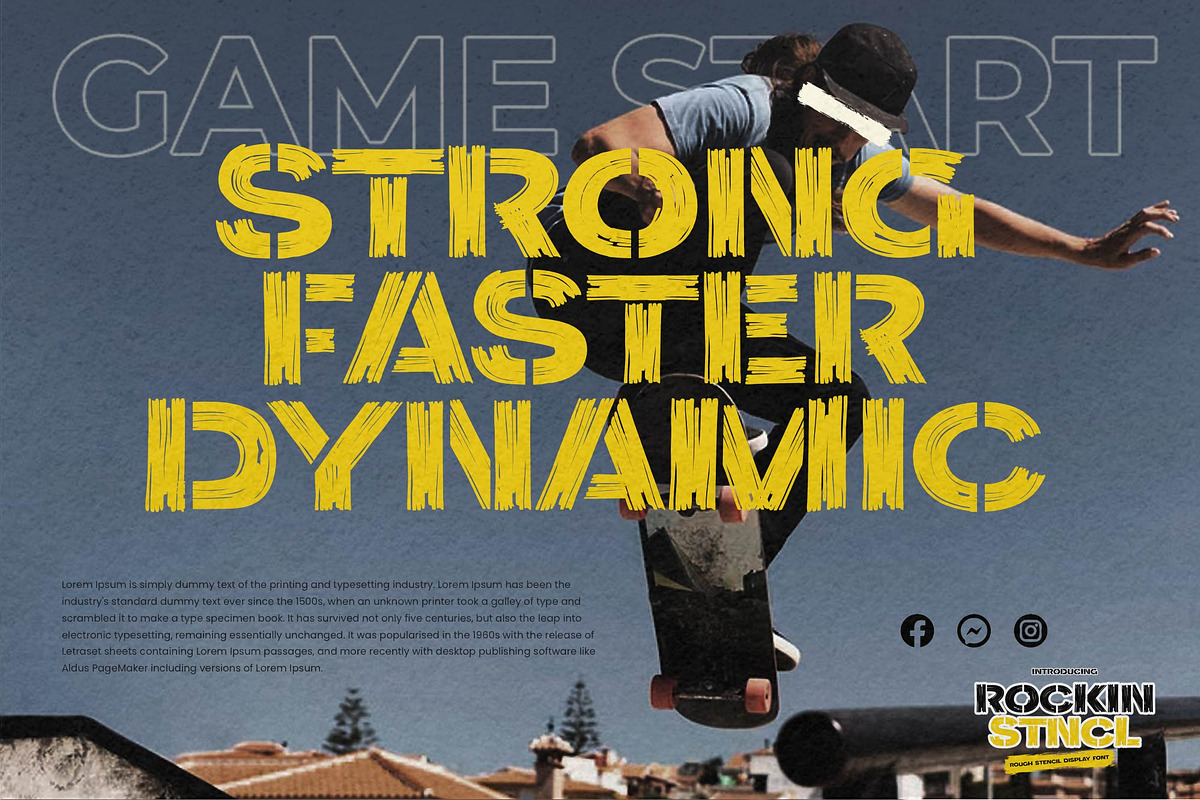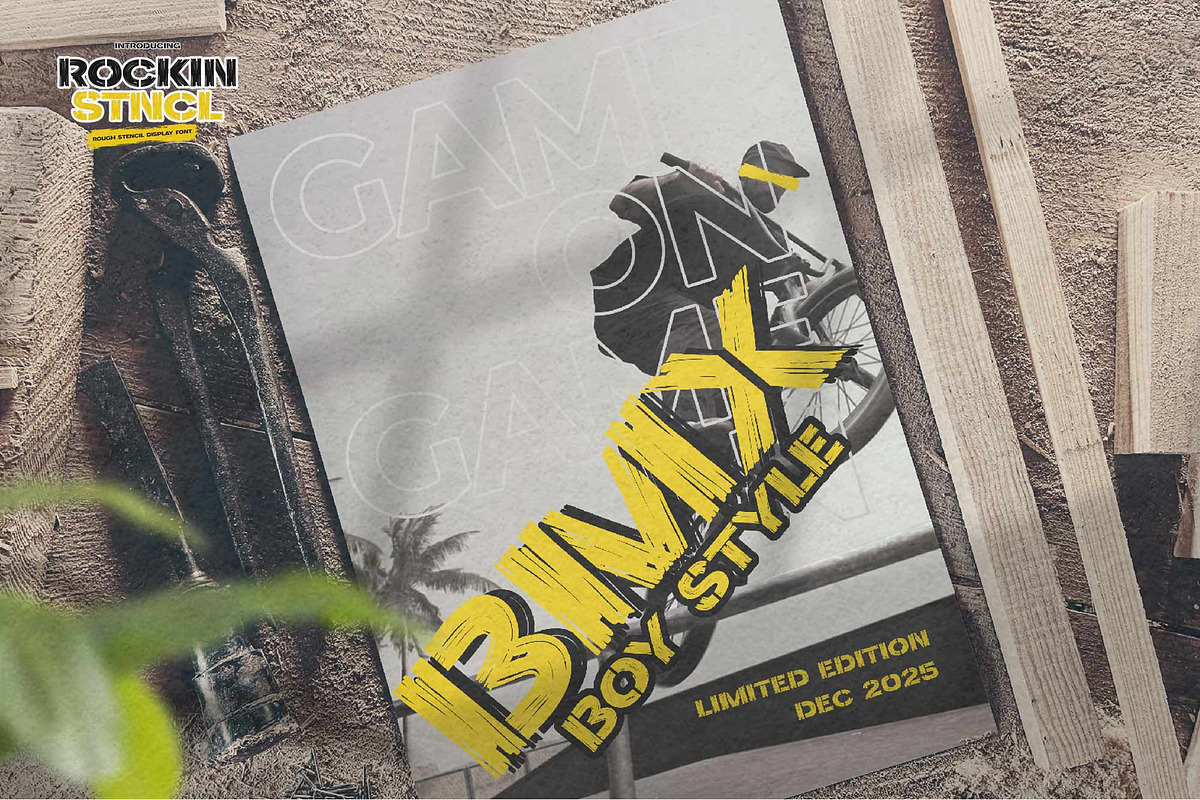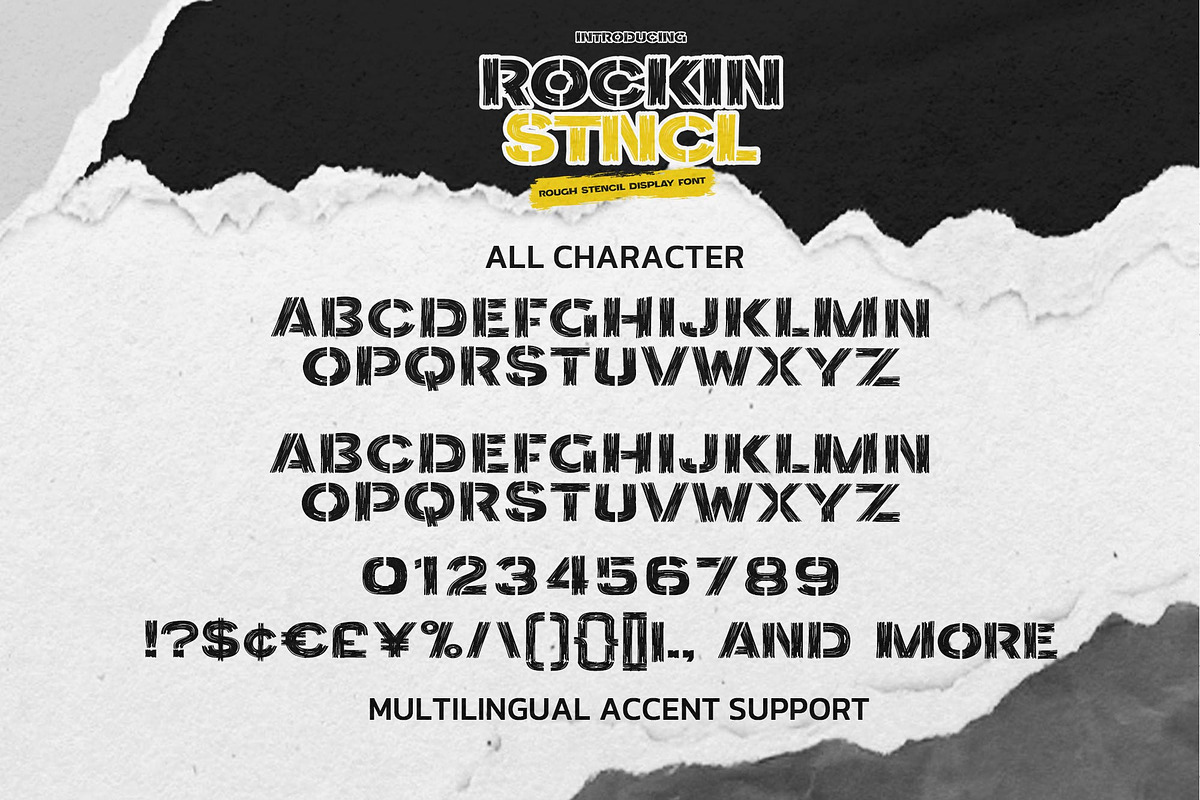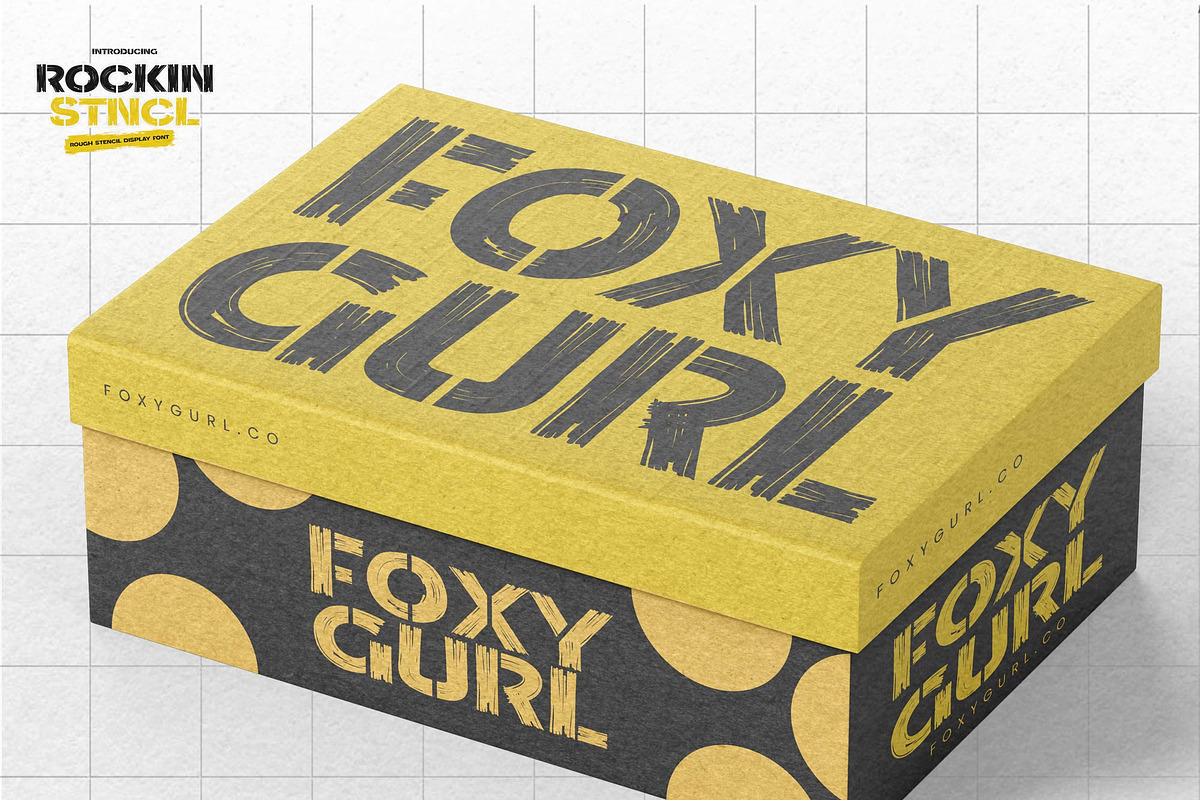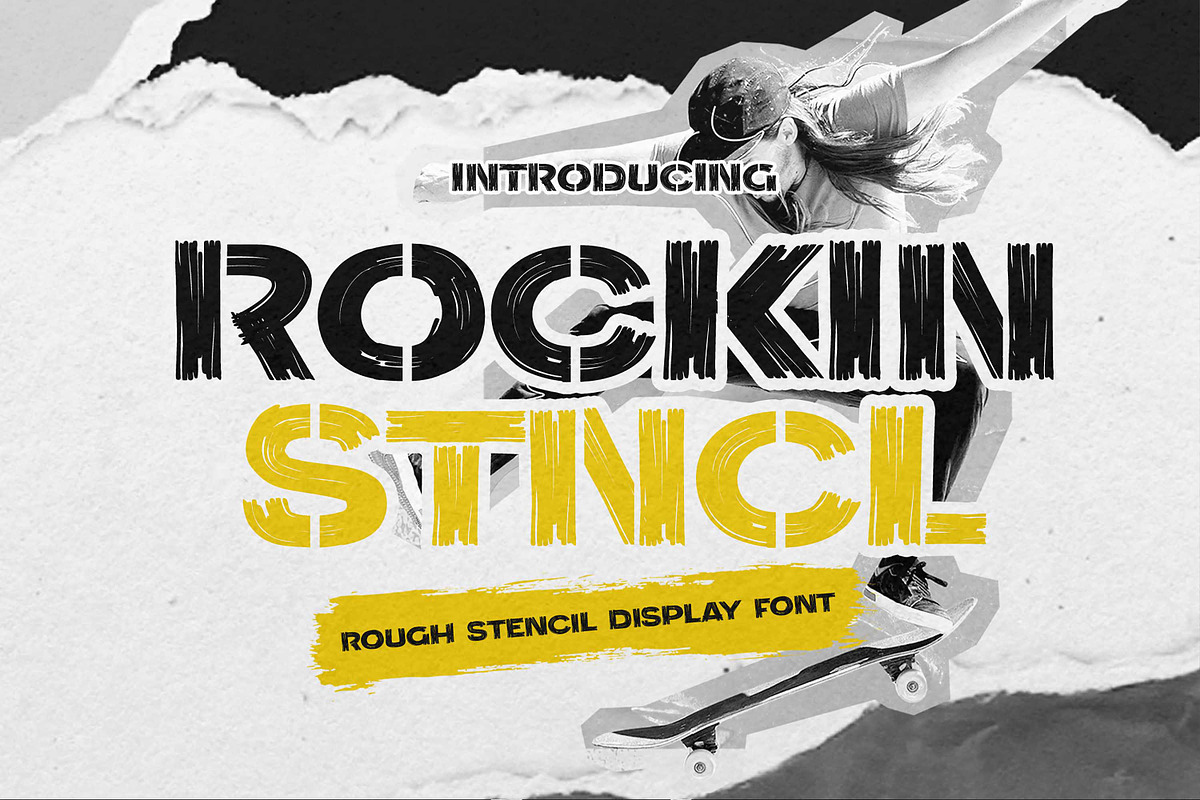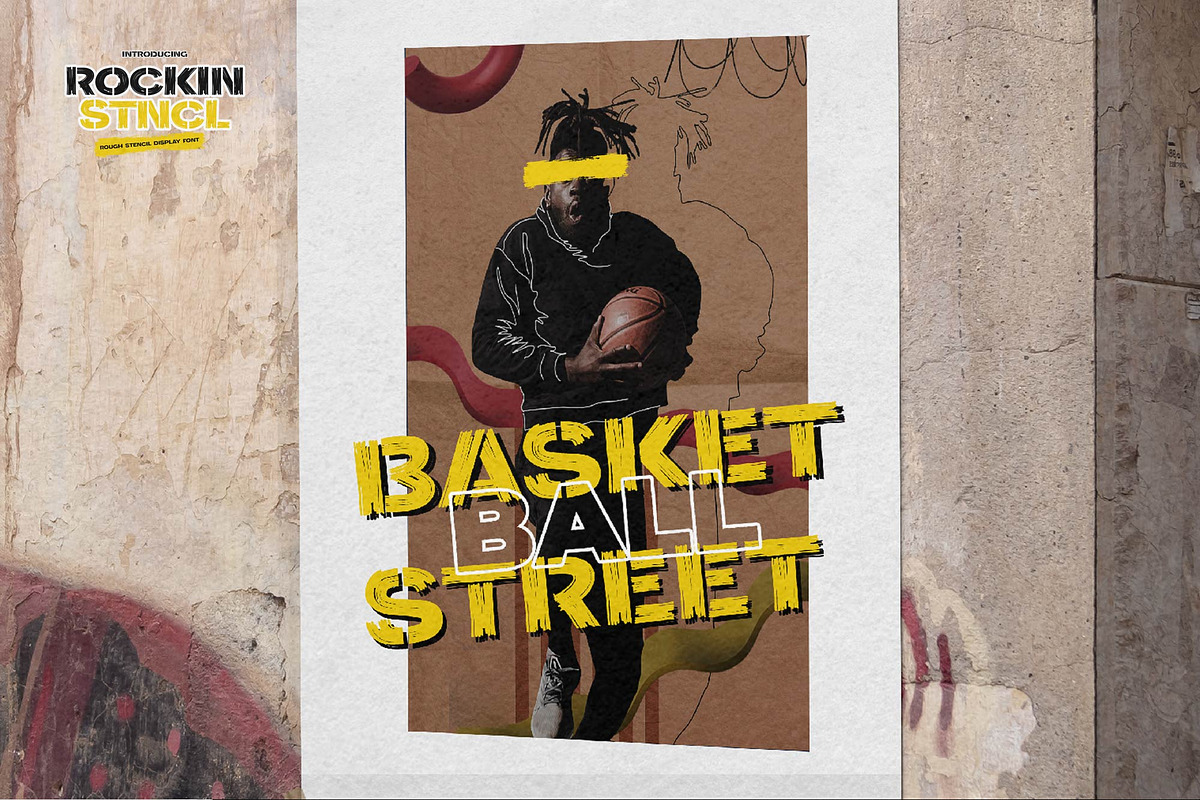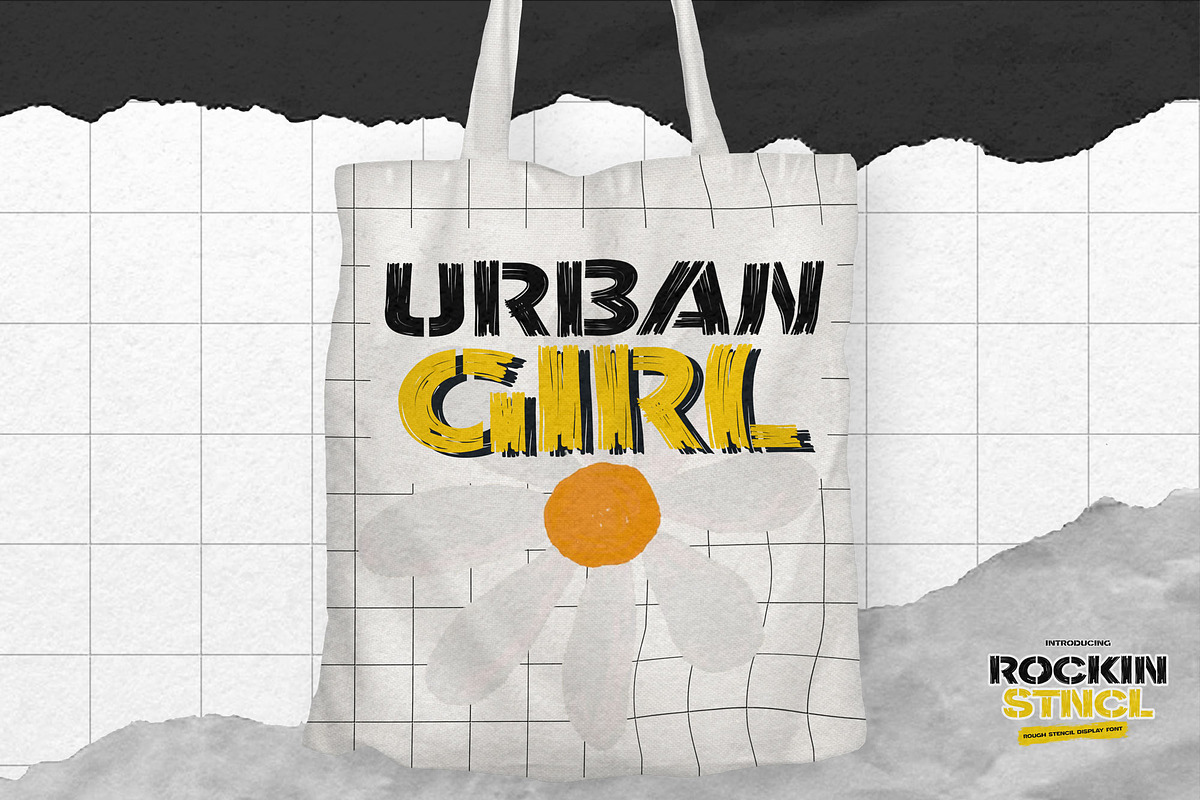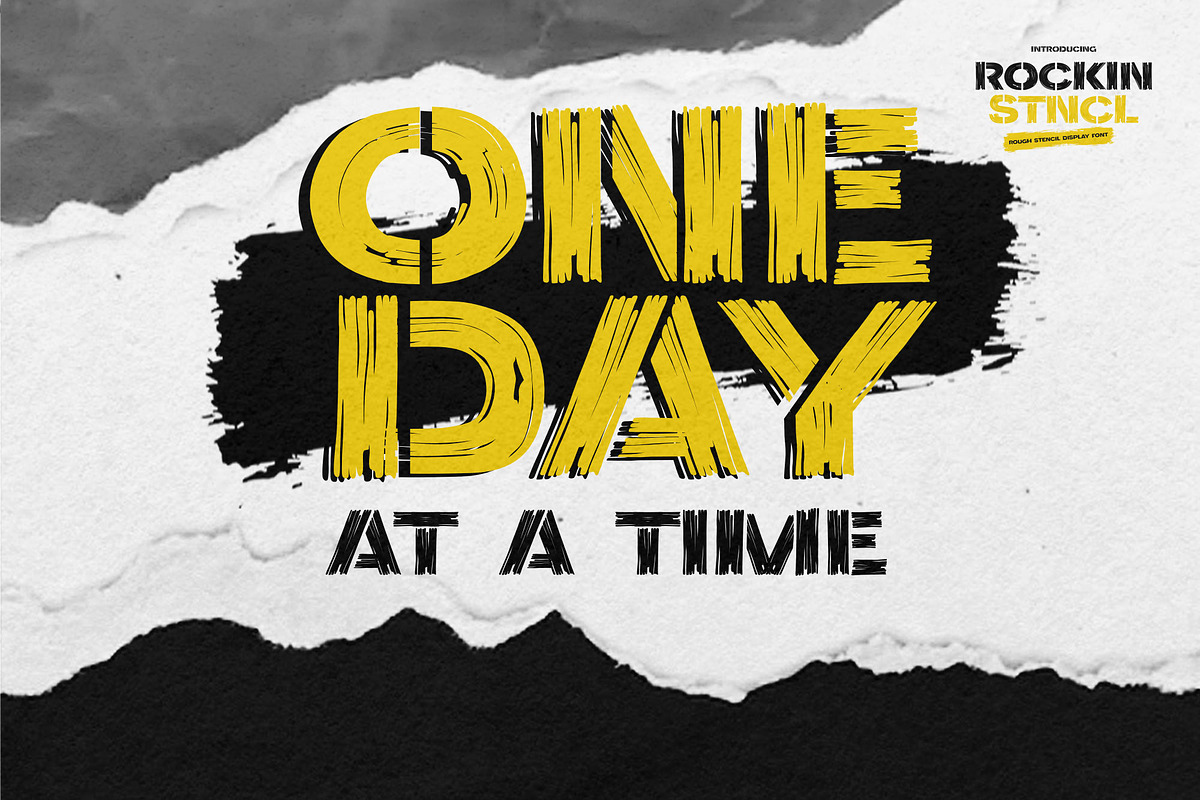
Rockin Stncl - Rough Stencil Display
Hello Everyone, introduce our new product Font Rockin Stncl This Is Rough Stencil Display Font.This is a Textured Natural Style and classy style with a clear style and dramatic movement. This font Rockin Stncl is great for your next creative project such as logos, printed quotes, invitations, cards, product packaging, headers, Logotype, Letterhead, Poster, Design this font is great for your creative projects such as watermark on photography, and perfect for logos & branding, invitation,advertisements,product designs, stationery, wedding designs,label ,product packaging, special events or anything that need handwritting taste. That is has charming, authentic and relaxed characteristic more natural look to your text.